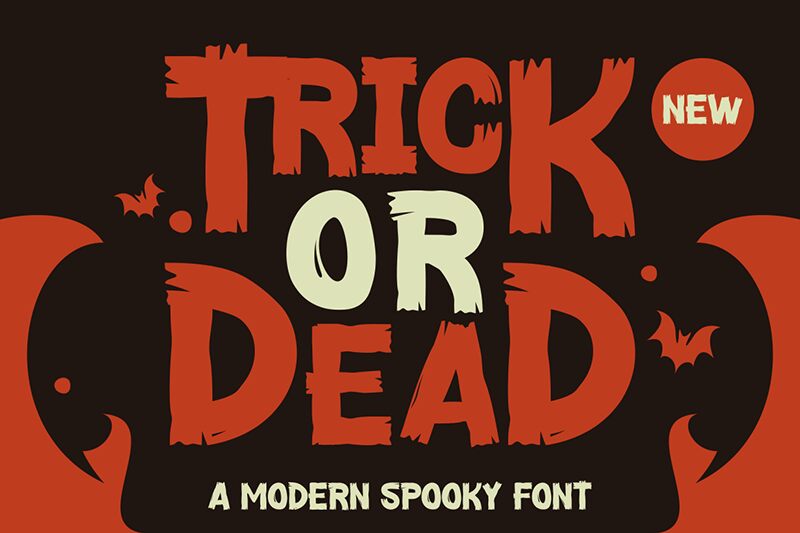
Trick Or Dead
Trick Or Dead font is an unsettling bold presence typeface with a Halloween theme designed by Gilang Ternadho. This creepy font has an overall distressed look that displays ragged jagged edges, making it the perfect brush to decorate October events and parties. An actual uneven texture of each letter along with condensed letter spacing adds grit to the overall appearance.
Ideas for use include posters, newspaper titles, Halloween print invitations, ad designs, social media announcement cards, banners, packaging labels and stickers. Names printed on napkins and glasses will likely work well too!